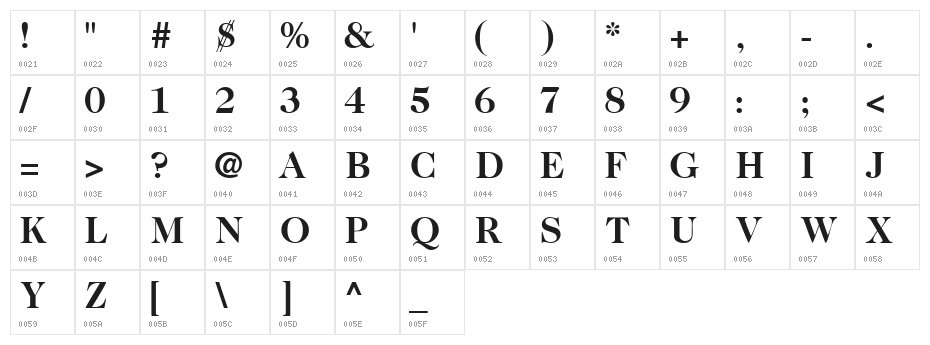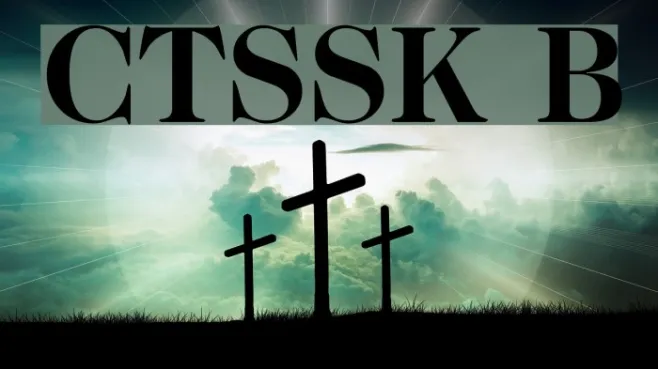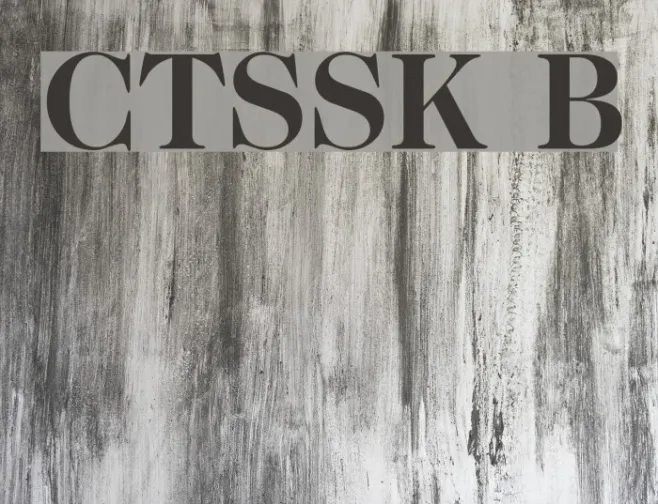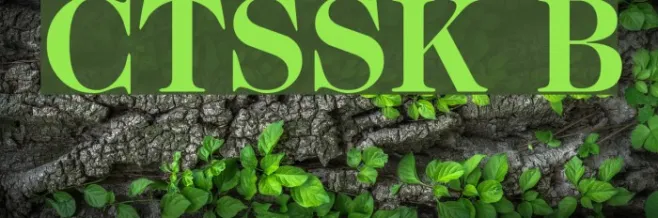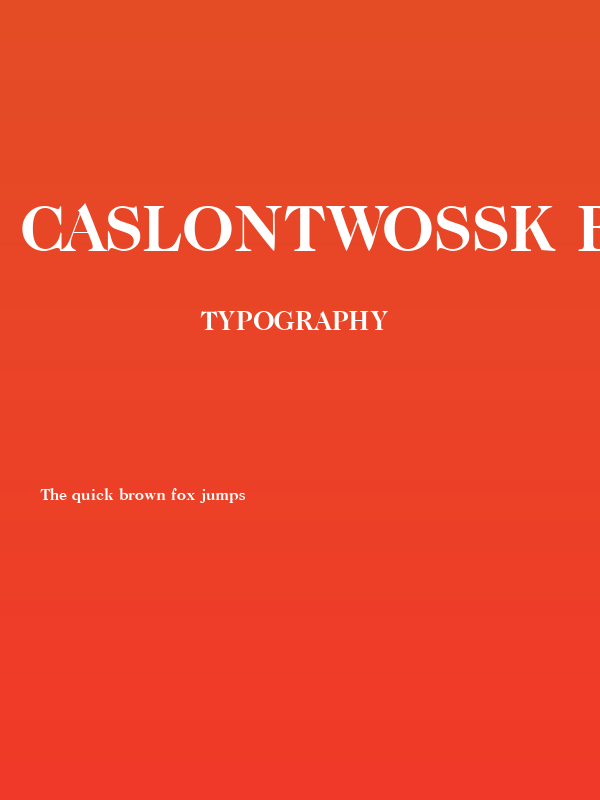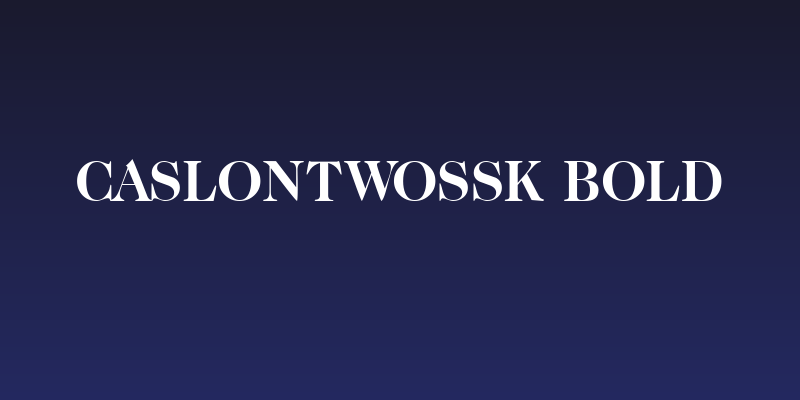
CaslonTwoSSK Bold Font
CaslonTwoSSK Bold Description
This font exhibits a classic serif style with a bold weight, characterized by its strong, thick strokes and elegant serifs. The uppercase letters are prominent and commanding, while the lowercase letters maintain a consistent and harmonious flow. The numerals are well-proportioned, adding to the font's versatility. Special characters are designed with the same attention to detail, ensuring a cohesive look across all glyphs. The overall appearance is traditional yet timeless, making it suitable for a variety of applications where readability and sophistication are desired.